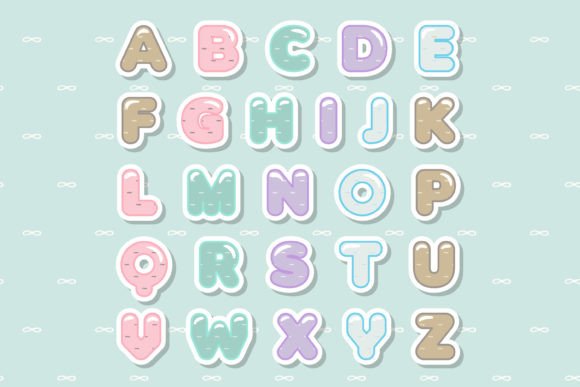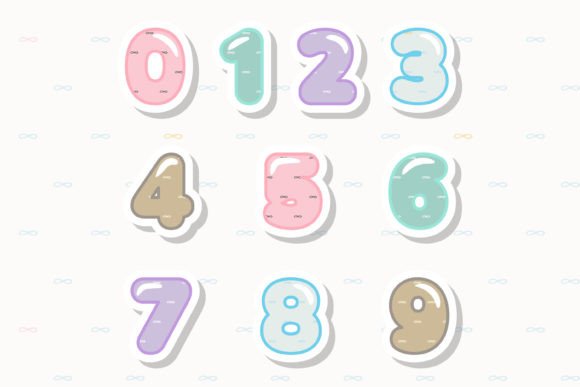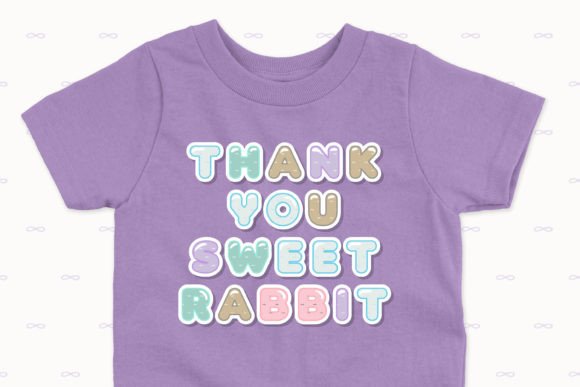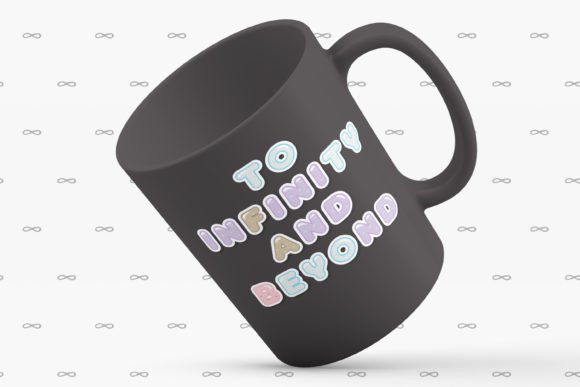
Introduction to Lemniscate Font
Do you remember the moment when you stumbled upon the perfect design element that elevated your creative project from ordinary to extraordinary? For many designers, it’s that one magical element that sets their work apart from the rest. For us, that element is the mesmerizing Lemniscate Font, an incredibly cool color font designed in the style of the iconic Infinity Pattern.
With its unique, swirling design, the Lemniscate Font is a game-changer for any creative project. Whether you’re working on a DIY craft, a custom design, or just need a lovely touch for your next creation, this font is an amazing choice. Its transparent background and high-quality design make it a valuable resource for designers who crave versatility and style.
Key Features of Lemniscate Font
- High-quality, elegant design perfect for creative projects requiring a unique touch.
- Includes a transparent background, allowing for seamless integration with various design elements.
- Features a large character set, including uppercase and lowercase letters, numbers, and punctuation marks.
- Designed at a high resolution (300 DPI), ensuring crisp and clear display on various devices and print materials.
- Unique lemniscate-inspired design elements add a touch of sophistication to any creative project.
Honest Review: Lemniscate Font
I recently stumbled upon the Lemniscate Font while working on a creative project that required a unique and eye-catching design element. I was pleasantly surprised by its clean and elegant aesthetic.
- ✨ High-quality design that’s perfect for a wide range of creative projects.
- ✨ Transparent background option allows for seamless integration into any design.
- ⚠️ Limited character set may require additional font combinations for extensive text usage.
- ⚠️ Some users may find the font’s elegance a bit too minimalist for their taste.
Overall, I’m impressed with the Lemniscate Font’s potential and would recommend it to designers seeking a high-quality, unique design element. While it may have some limitations, its free download and transparent background make it an excellent addition to any design resource collection.
Common Use Cases for Lemniscate Font
The Lemniscate Font is ideal for creative projects, such as logos, business cards, and invitations. Its unique design and high-quality aesthetic make it a great choice for designers looking for a distinctive and professional look.
Tips for Getting the Most Out of Lemniscate Font
To get the most out of the Lemniscate Font, experiment with different styles and combinations. Pair the font with other design elements, such as images or graphics, to create a visually appealing design. Don’t be afraid to adjust the font size and style to fit your project’s needs.
Alternatives to Lemniscate Font
The Great Vibes Font is a high-quality, elegant script font perfect for creative projects requiring a touch of sophistication. It’s ideal for use in headings, titles, and short paragraphs where a beautiful, handwritten feel is desired. Great Vibes Font is a great alternative to Lemniscate Font for designers looking for a more refined and polished look.
The Dancing Script Font is a fun, energetic script font suitable for use in design projects where a playful and dynamic feel is needed. It’s great for titles, headings, and short paragraphs, and can be used on a transparent background for a stunning effect. Dancing Script Font is a good choice for designers who want to add some movement and energy to their design.
The Pacifico Font is a beautiful, elegant script font that’s perfect for use in design projects where a sense of relaxation and calm is desired. It’s ideal for use in headings, titles, and short paragraphs, and can be used on a transparent background for a stunning effect. Pacifico Font is a great alternative to Lemniscate Font for designers looking for a more laid-back and sophisticated look.
Can I customize the Lemniscate Font to fit my design needs?
Yes, the Lemniscate Font is fully editable and can be customized to fit your design needs. You can use font editing software, such as FontLab or Glyphs, to modify the font’s characters, spacing, and other attributes. Additionally, you can use font management software to organize and manage your font library, including the Lemniscate Font.